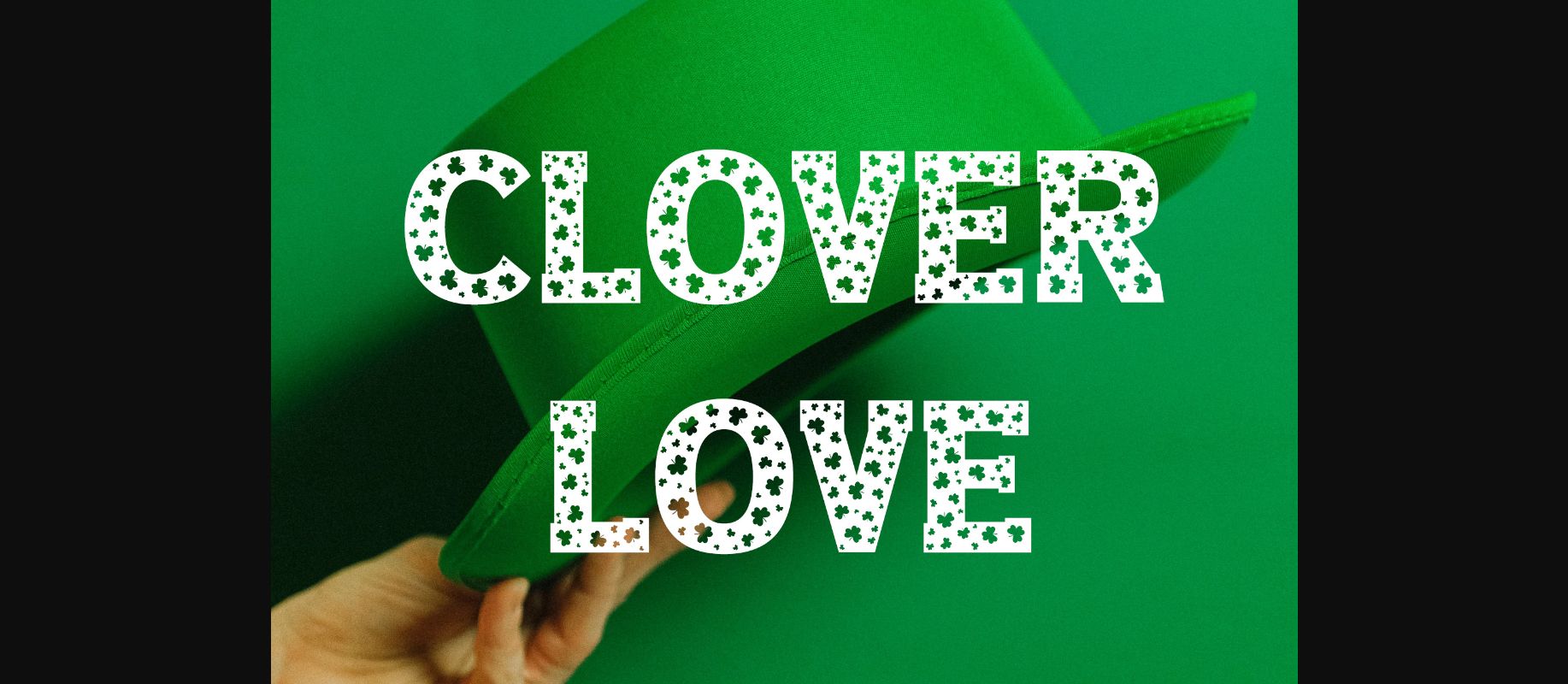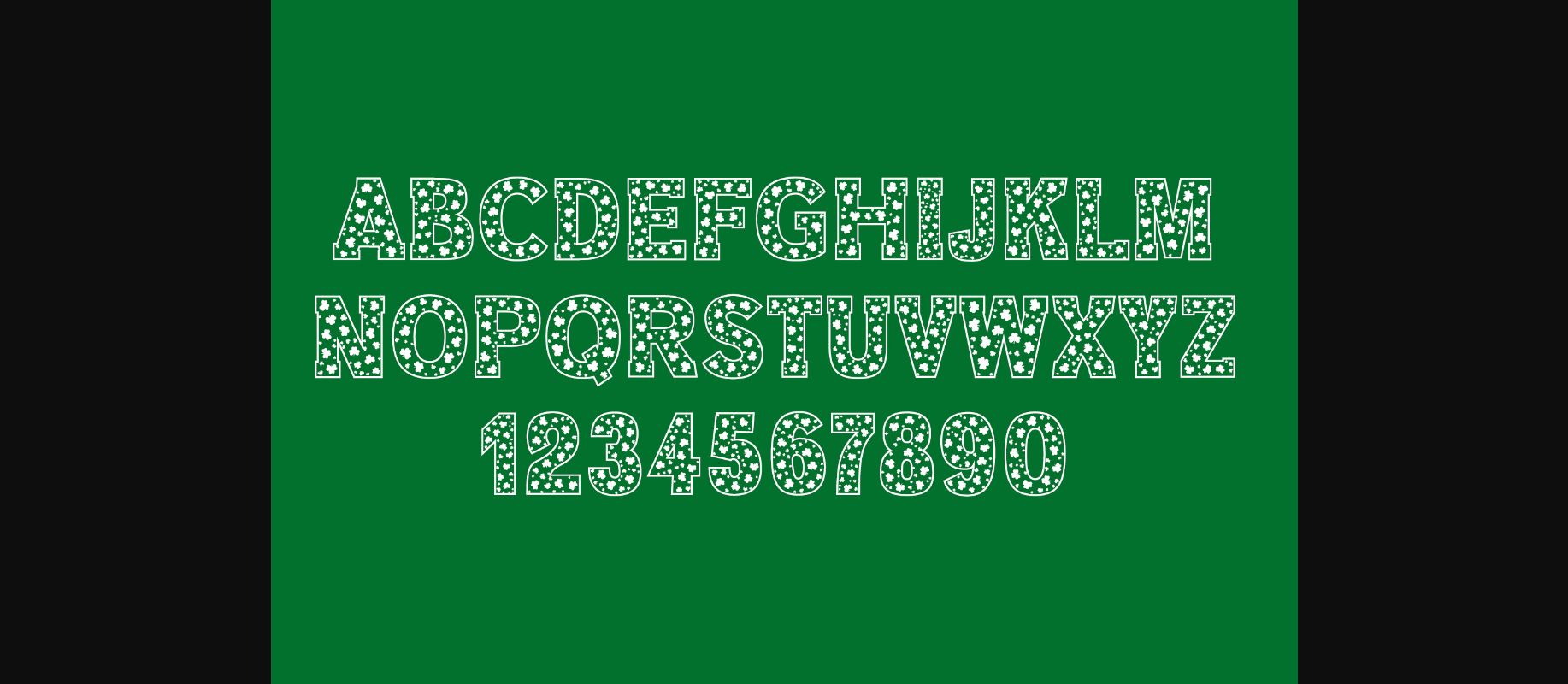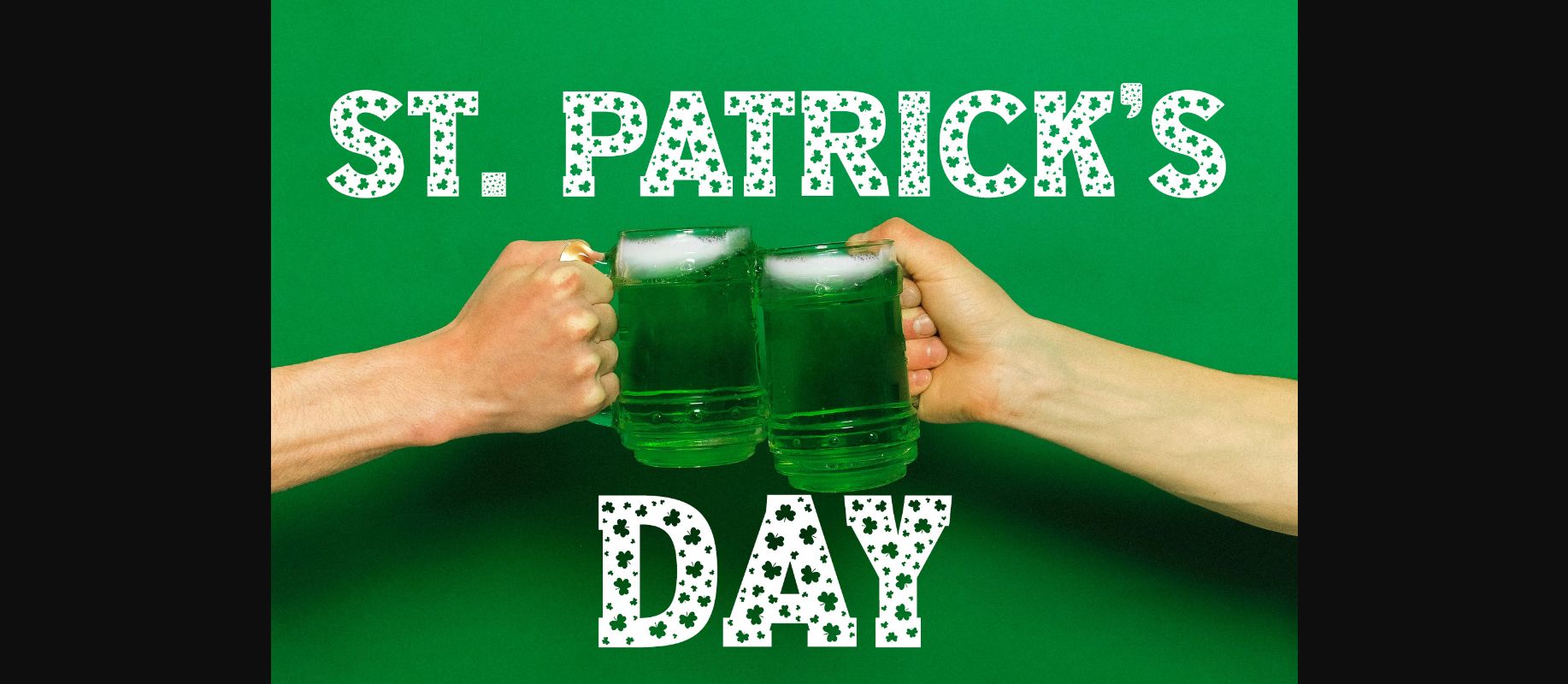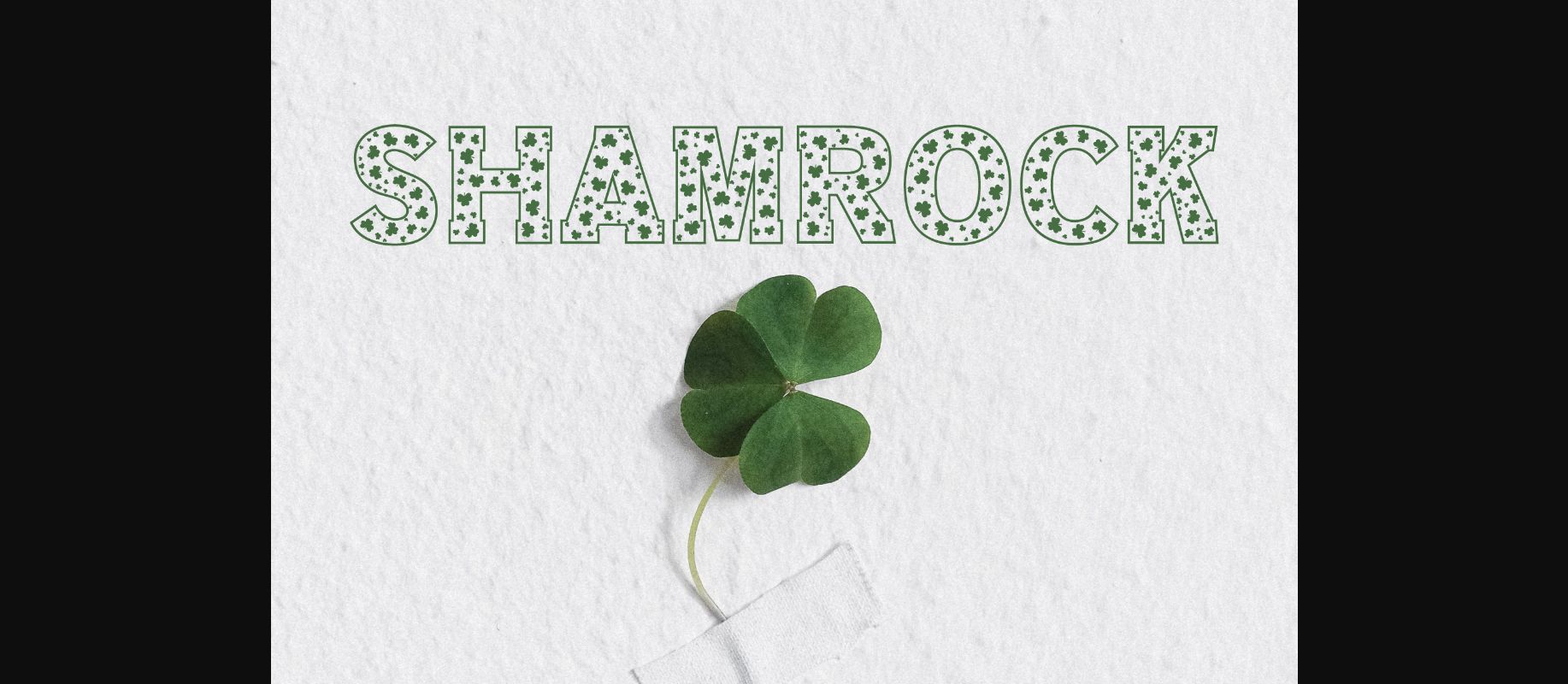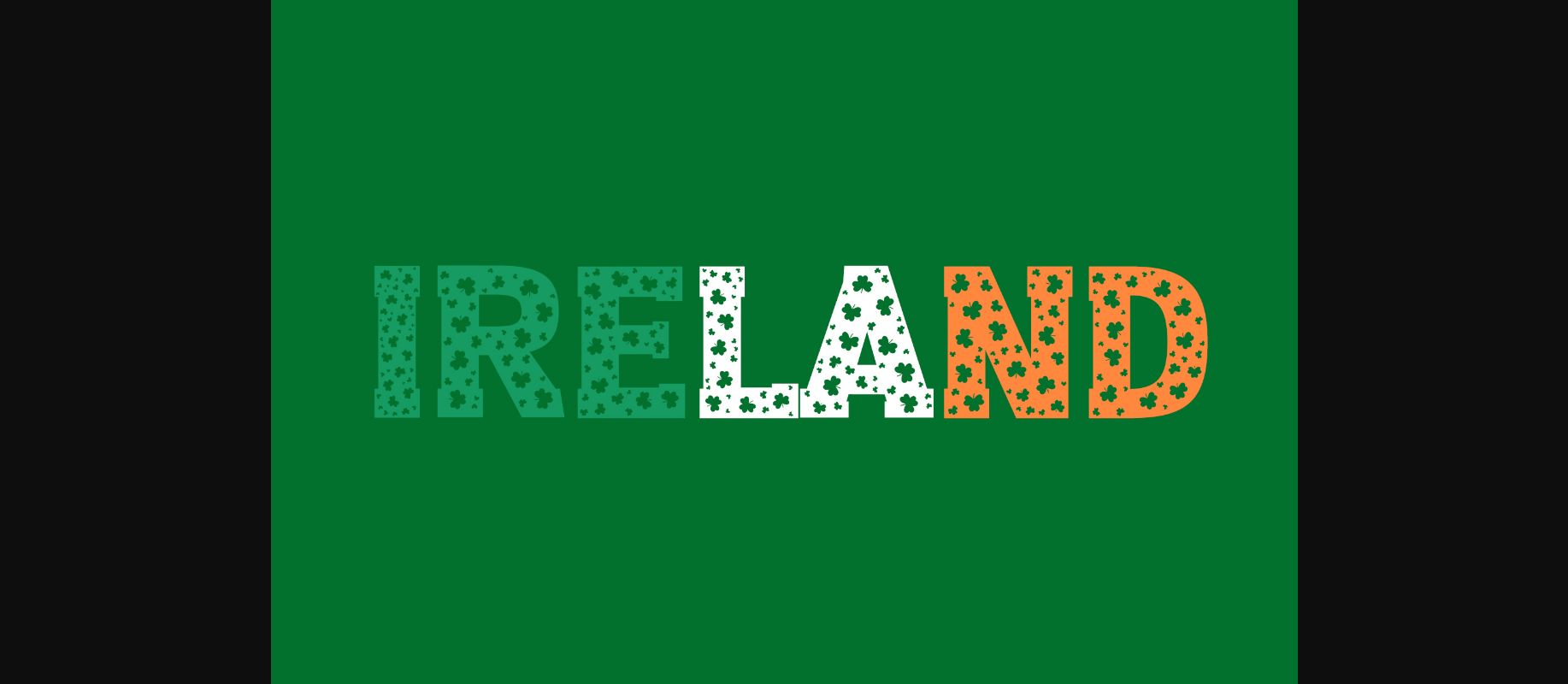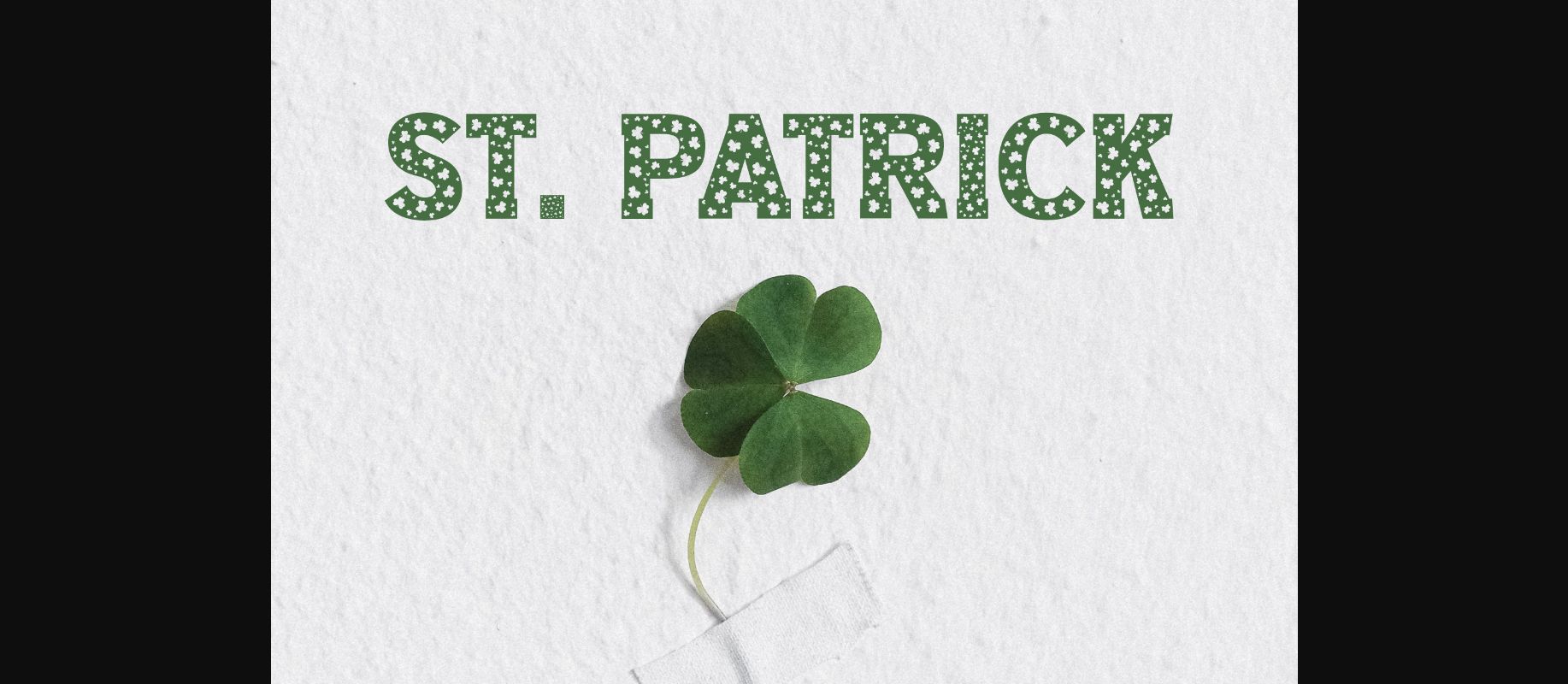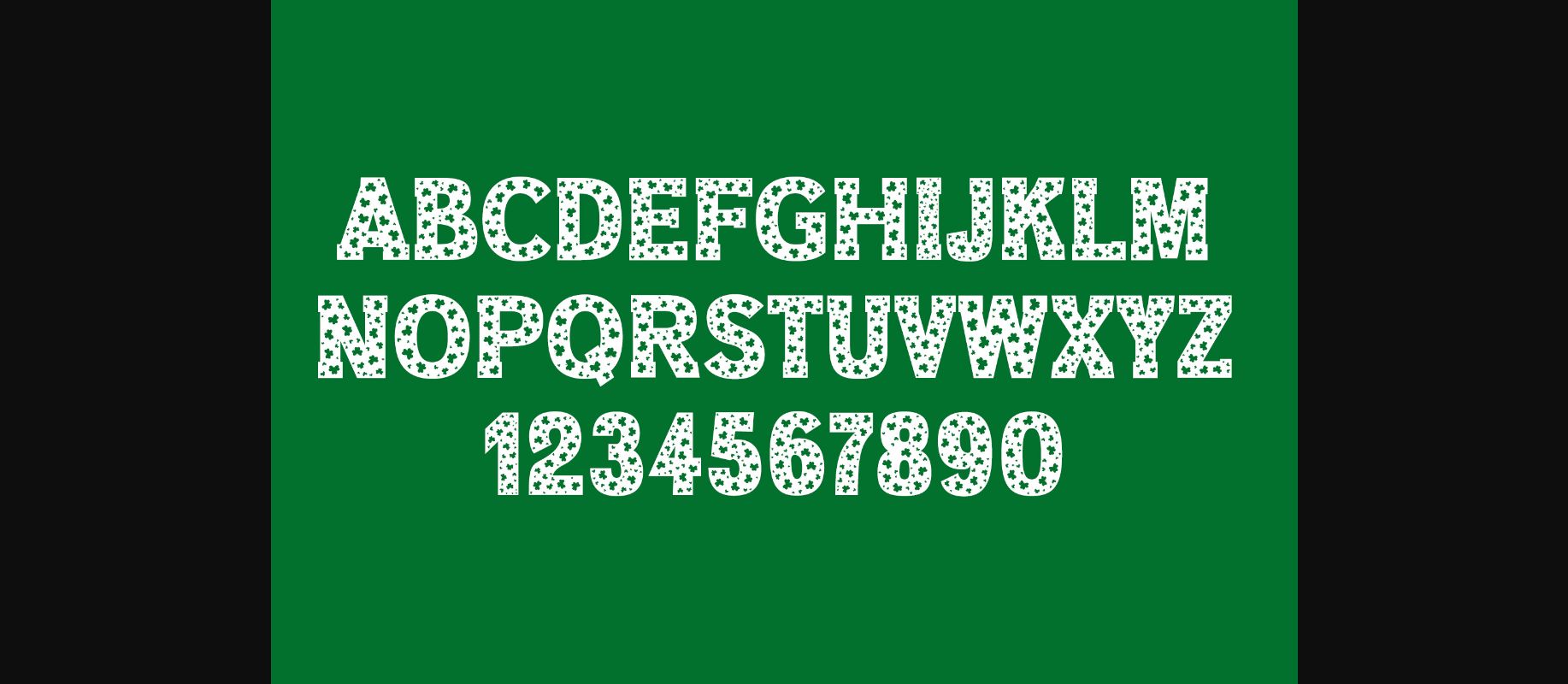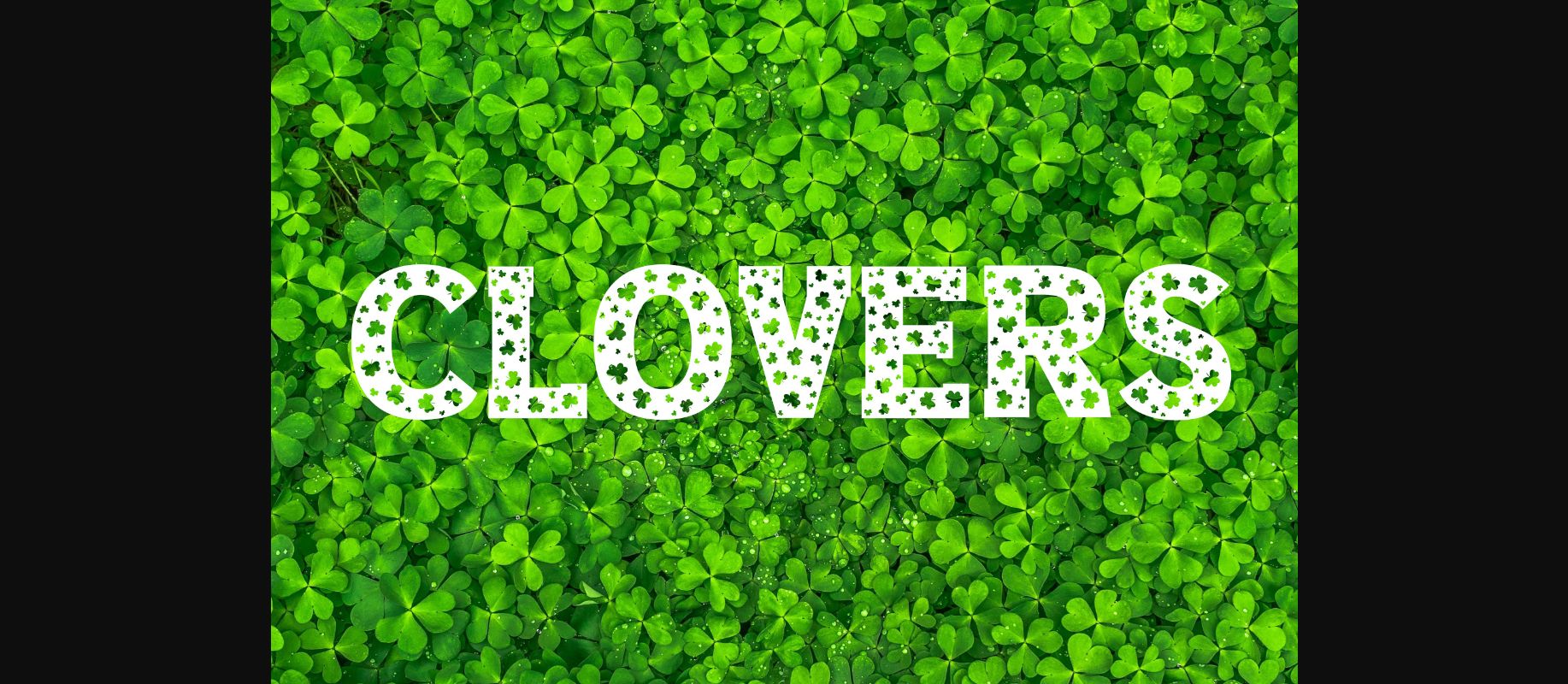
About Clover Love Font
Clover Love is a bold and incredibly authentic decorative font, featuring little clovers as ornaments. Add this thick lettered font to your most creative ideas and notice how it makes them come alive!